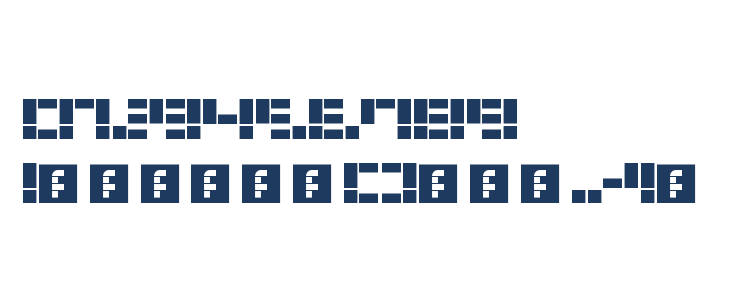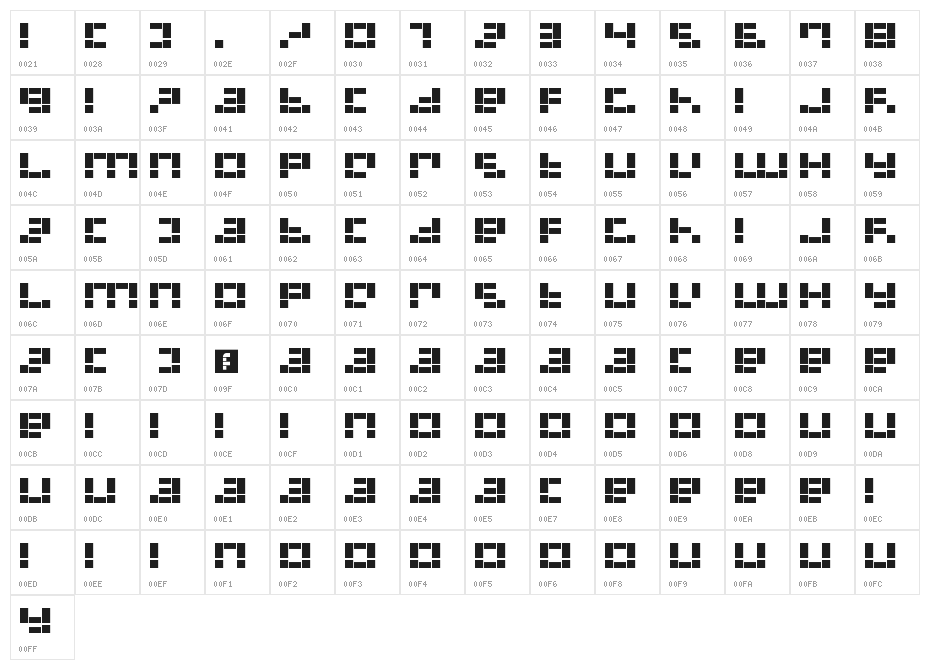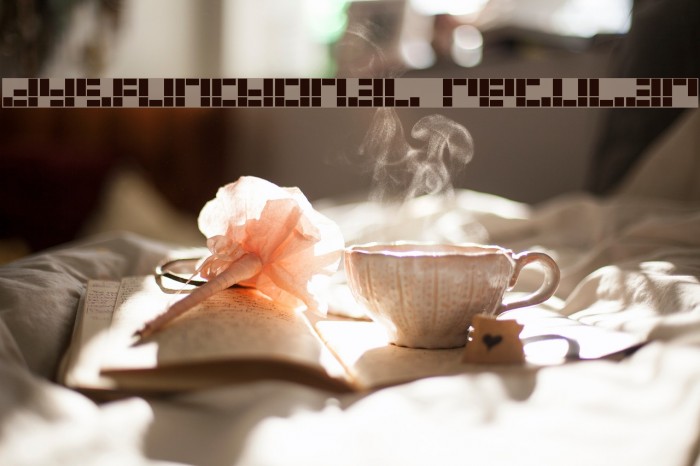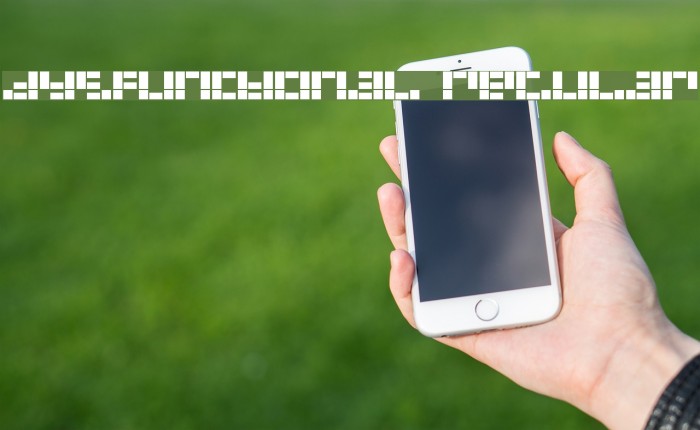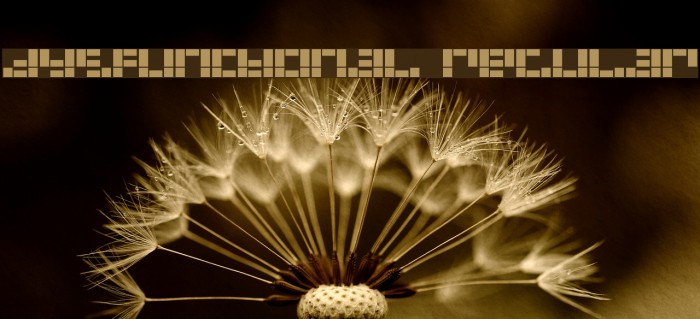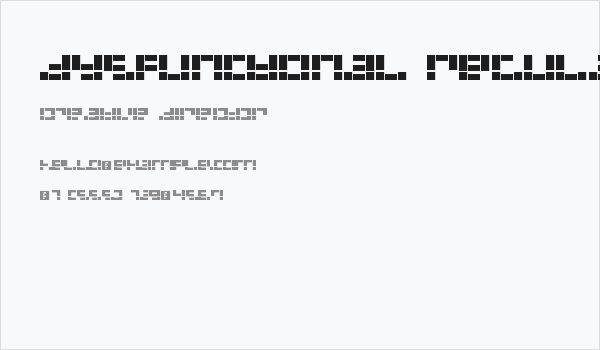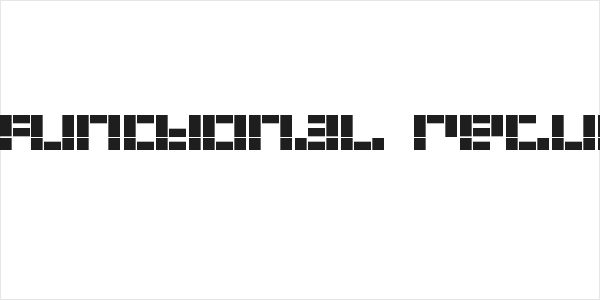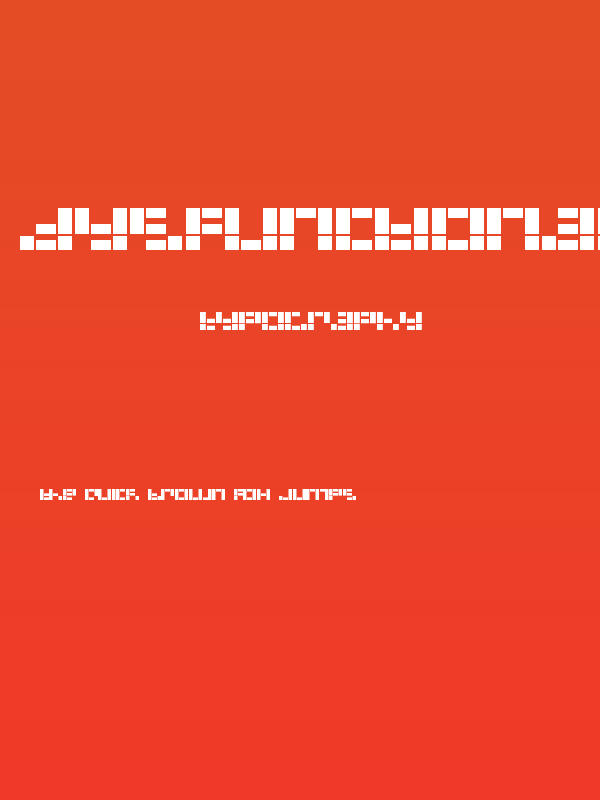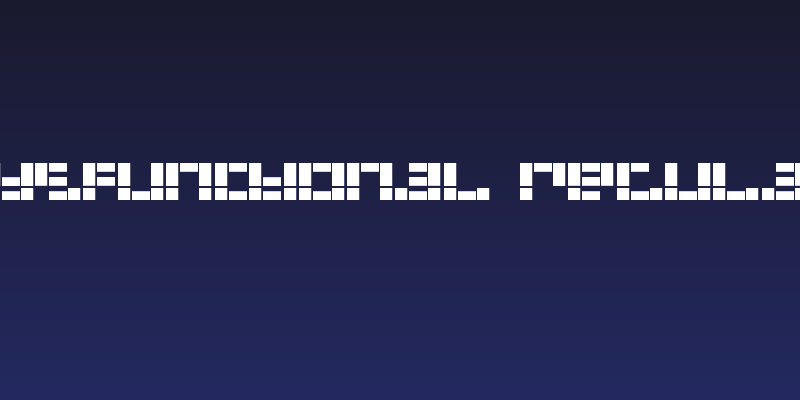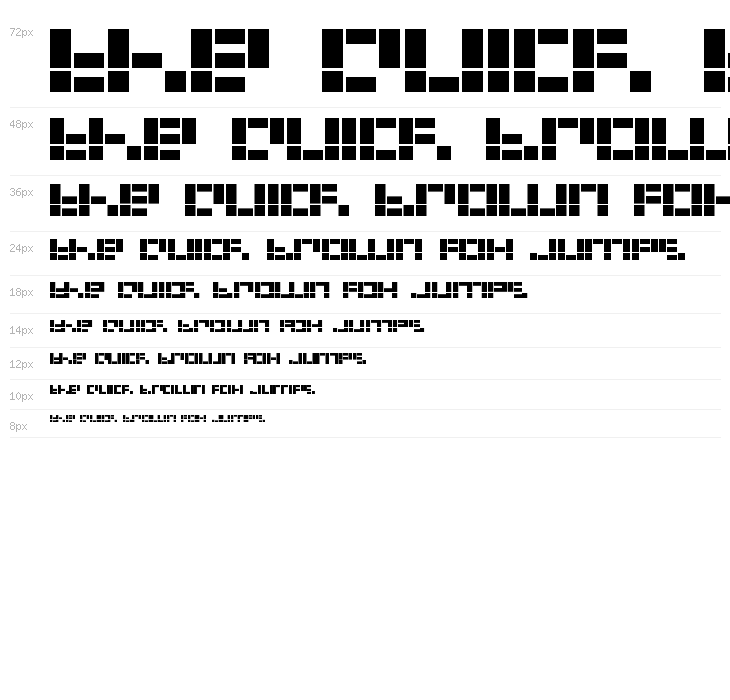
Dysfunctional Regular Font
Dysfunctional Regular Description
This font features a unique, pixelated design that resembles digital or electronic displays. Each character is constructed from a grid of square blocks, giving it a distinctly modern and technological appearance. The uniformity of the squares creates a consistent visual rhythm across all characters, making it highly recognizable. The font lacks traditional curves and serifs, instead opting for a geometric and modular structure. This style is reminiscent of early digital fonts used in LED displays and retro video games, offering a nostalgic yet futuristic feel.
| Proposed Projects | Ideal for projects involving digital themes, such as video game design, tech branding, or any creative work that requires a retro digital aesthetic. |